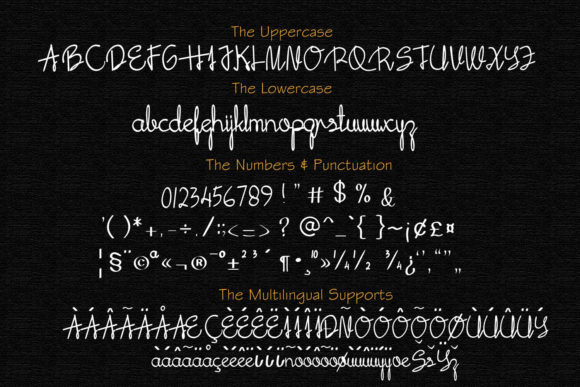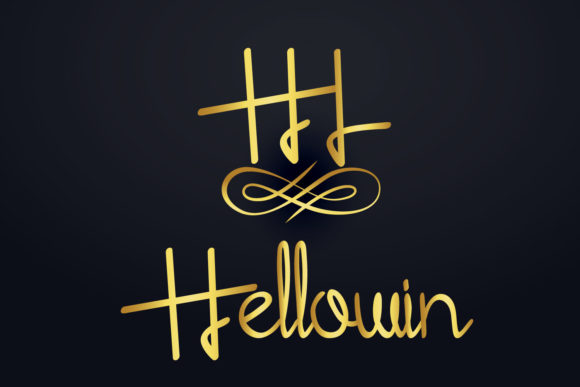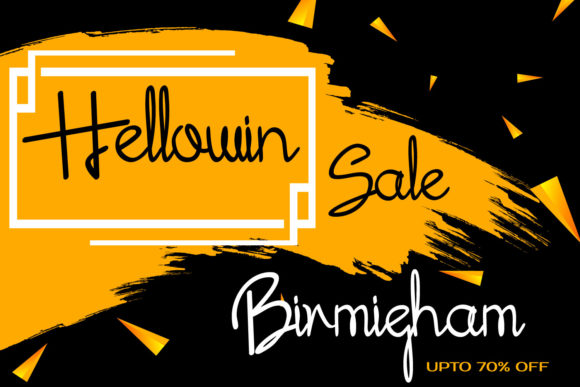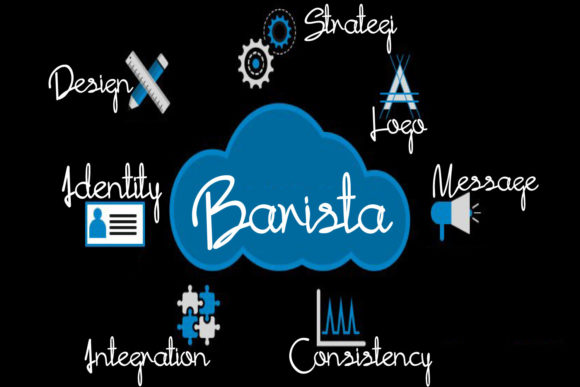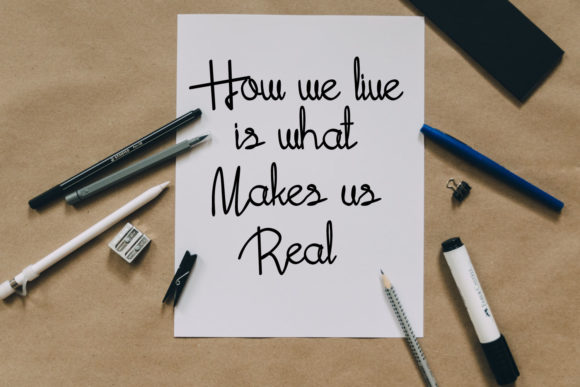
Introduction to Hellowin Font
Hellowin is a beautiful light handwritten font with a unique feel and a stunning impact.
It will add a luxury spark to any design project that you wish to create Fall in love with its incredibly versatile style and use it to create spectacular designs.
Key Features of Hellowin Font